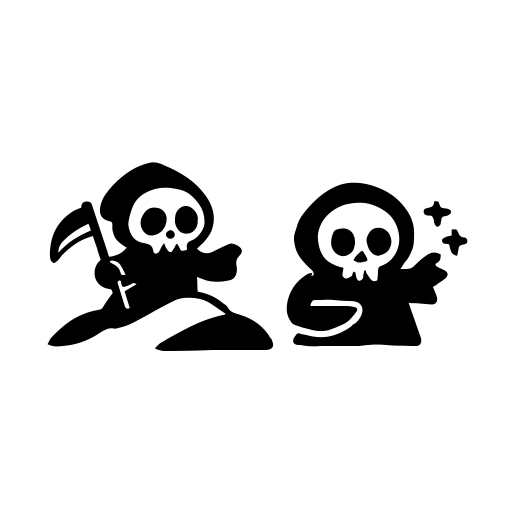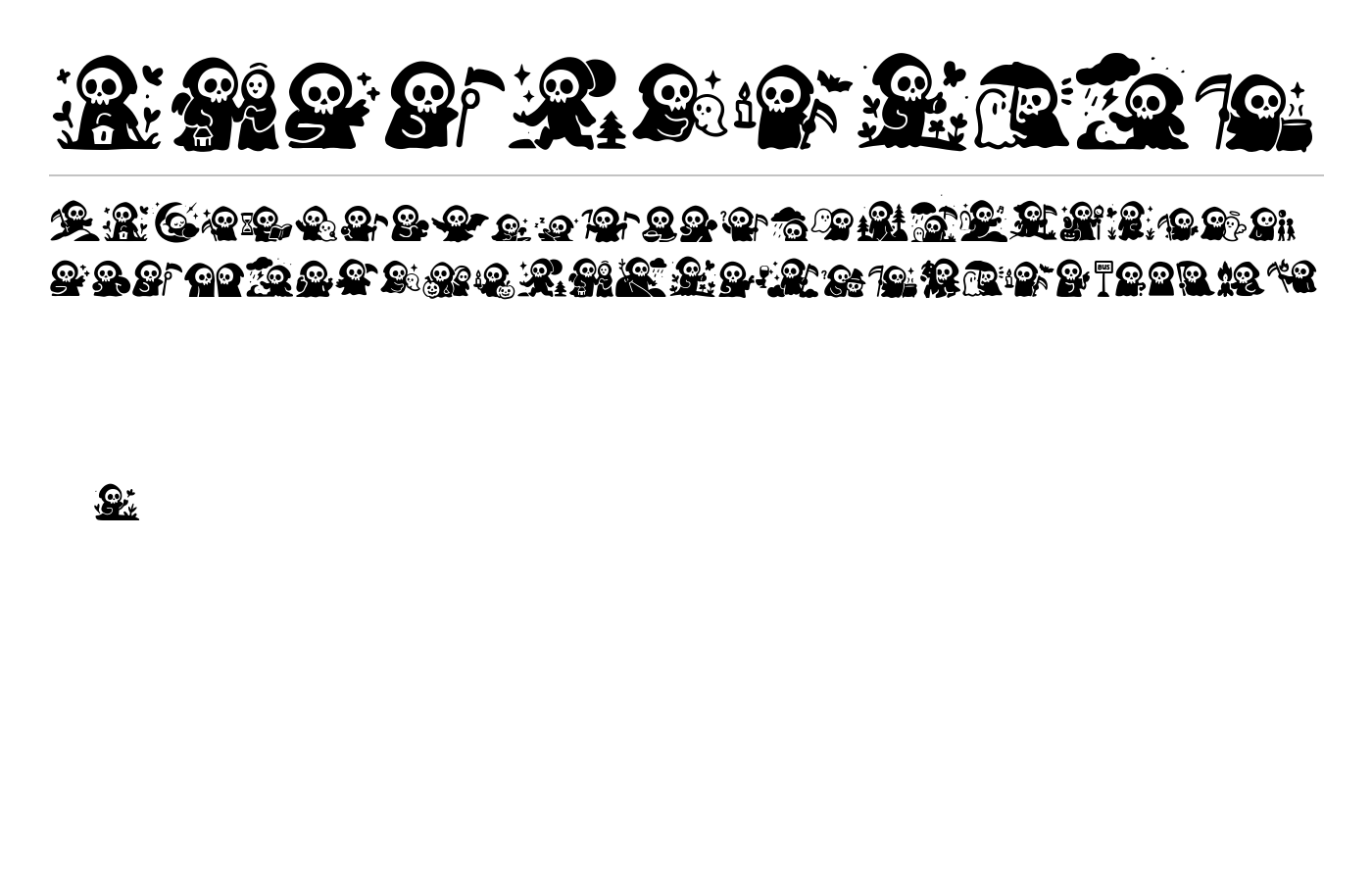
Blackhunter is a playful and whimsical dingbat font featuring charming, cartoon-style grim reaper characters in various poses and scenarios. Its bold, solid black shapes with rounded edges give it a friendly, lighthearted feel perfect for Halloween-themed designs, kid-friendly projects, or quirky branding. This font works exceptionally well for fun posters, themed invitations, or creative packaging where a unique and engaging visual personality is desired.
Blackhunter Font
About Blackhunter Font
| Font family | Blackhunter Font |
| Designer | BlackFridayFont |